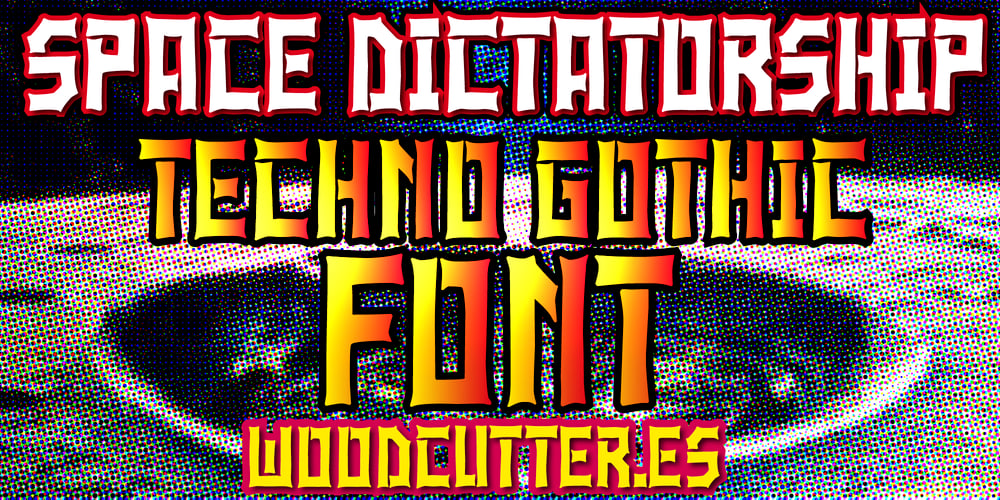
Space Dictatorship Font Family was designed by Jordi Manero and published by Woodcutter. Space Dictatorship contains 1 styles and family package options. “Space Dictatorship” is a font with a rigid and Soviet look, yet handcrafted, giving it a unique and artisanal touch. Each uppercase letter and accent is presented with strong, defined lines, evoking an authoritative and powerful aesthetic. Ideal for projects that need to stand out with a robust and distinctive style, this font is perfect for posters, headers, and any design requiring a strong and striking presence. Its handcrafted appearance adds a personal nuance that contrasts with its rigidity, offering a unique combination of tradition and originality.